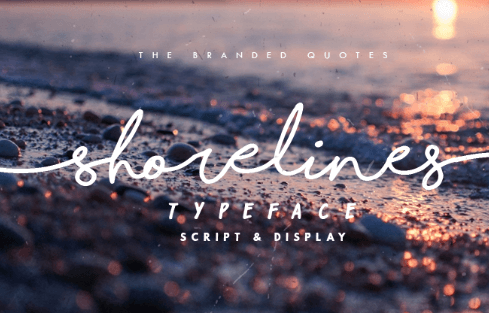
Let's discover Shorelines Script Font today! It's a simple font that resembles the luna font. The letters are bold and easy to read. If you want a font that stands out, this one's for you!
Shores Script isn't your usual cursive font, it can behave like a girl’s handwriting then shreds like a boss over the ocean waves!